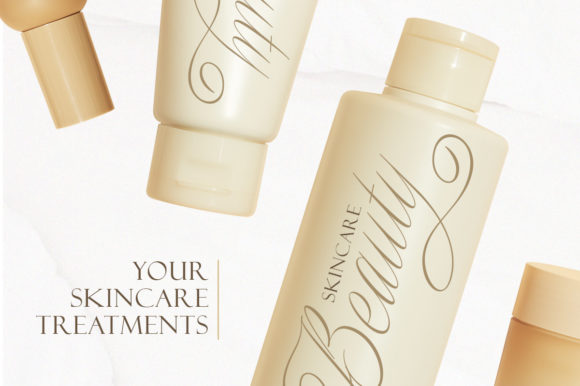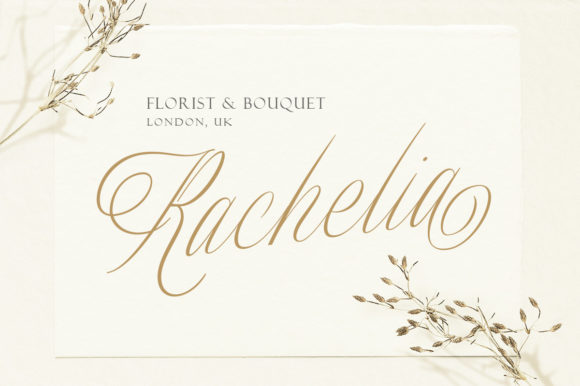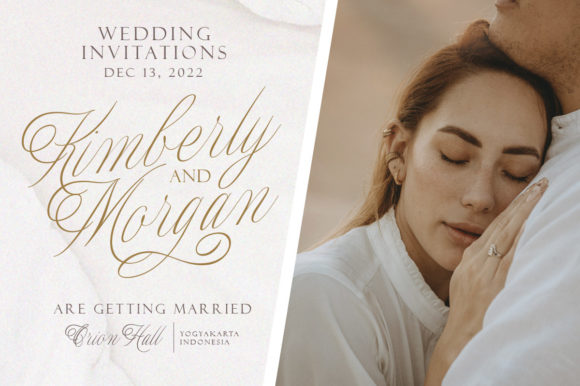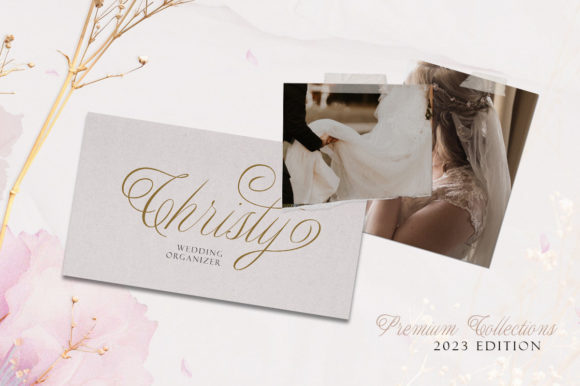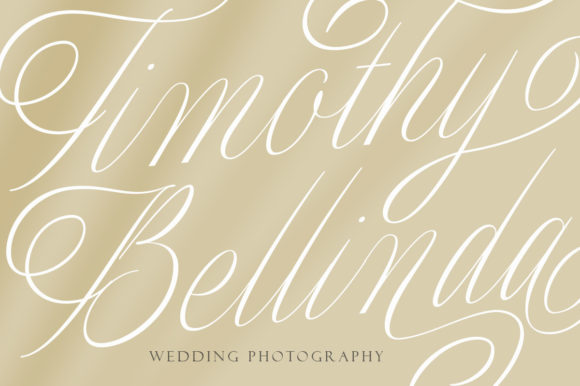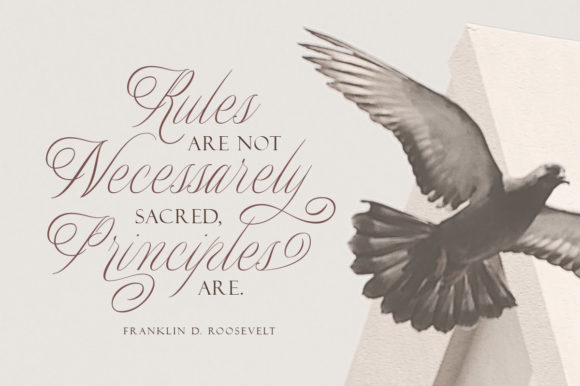
Introduction to Merodine Font
As a designer, there’s nothing quite like the thrill of bringing a creative project to life. The moment when a concept transforms into a stunning visual representation is pure magic. But what makes all the difference in elevating your designs from good to great? The choice of font, of course! That’s why we’re excited to introduce you to the Merodine Font, a flowing handwritten font that exudes elegance and sophistication.
With its incredibly distinct and timeless style, the Merodine Font is the perfect addition to any design resource. Whether you’re working on a high-quality brochure, a website with a transparent background, or a social media campaign, this font is sure to make your designs stand out. And the best part? It’s free to download, making it an invaluable resource for designers of all levels.
Key Features of Merodine Font
- Unique, elegant script font with a transparent background, perfect for adding a touch of sophistication to your designs.
- Includes 6 font styles, each with its own distinct character and flair, to add depth and variety to your designs.
- Perfect for use in a variety of creative projects, including logos, invitations, and digital art, where a touch of elegance and sophistication is desired.
Honest Review: Merodine Font
I recently came across the Merodine Font, and I must say it’s been a valuable addition to my design resource library. One of the things that immediately caught my attention was its high quality and versatility.
Here are some of the things that work well with the Merodine Font:
- ✨ Clean and modern design aesthetic
- ✨ Highly legible even at small font sizes
- ✨ Supports a range of languages
- ⚠️ Limited font weights and styles
- ⚠️ Not suitable for designs with transparent backgrounds
Overall, I’m quite impressed with the Merodine Font. It’s a great resource for creative projects, and the free download makes it an excellent value. While it may not be the most comprehensive font, its strengths make it a worthwhile addition to any design library. If you’re looking for a high-quality, modern font for your next project, the Merodine Font is definitely worth considering.
Merodine Font is a high-quality design resource that can be used for various creative projects, such as graphic design, digital art, and typography. Its transparent background makes it easy to use on any background, and its high-quality design makes it perfect for print or digital media.
Alternatives to Merodine Font